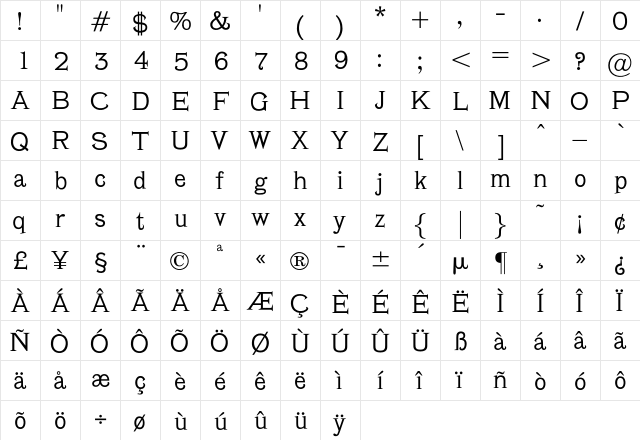
Cleveland Regular
Design Context for Cleveland Typeface
Cleveland offers clean, dependable letterforms without strong stylistic allegiance, making it a practical choice for designers who need flexibility.